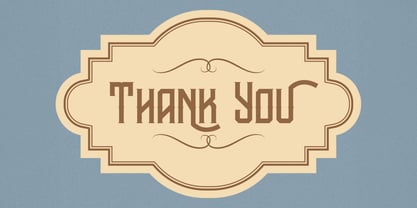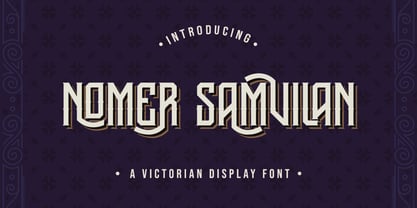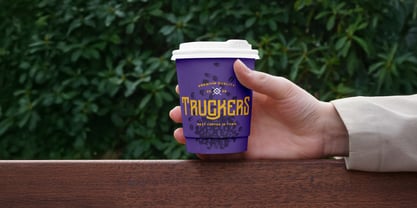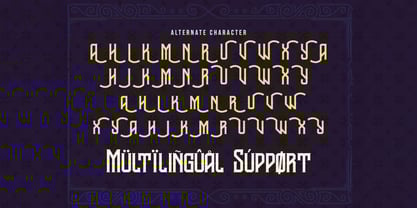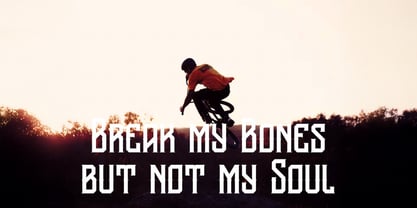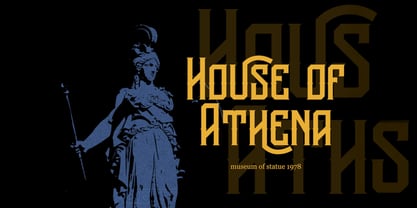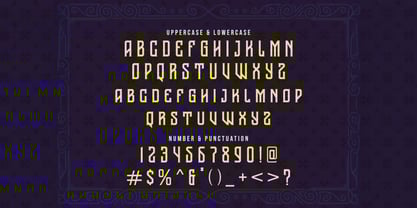
Nomer Samvilan
The Nomer Samvilan Font Family was designed by Virgiawan Listanto and published by Stringlabs Creative Studio. Nomer Samvilan contains 1 styles. More about this family
Nomer Samvilan is a Victorian display font inspired by the ornate lettering of the 19th century. With its decorative swashes, bold curves, and intricate details, it brings a sense of vintage grandeur to your designs. Perfect for posters, book covers, packaging, logos, invitations, and signage, Nomer Samvilan captures the charm of classical typography while maintaining readability, making it an excellent choice for projects that demand elegance and historical flair.